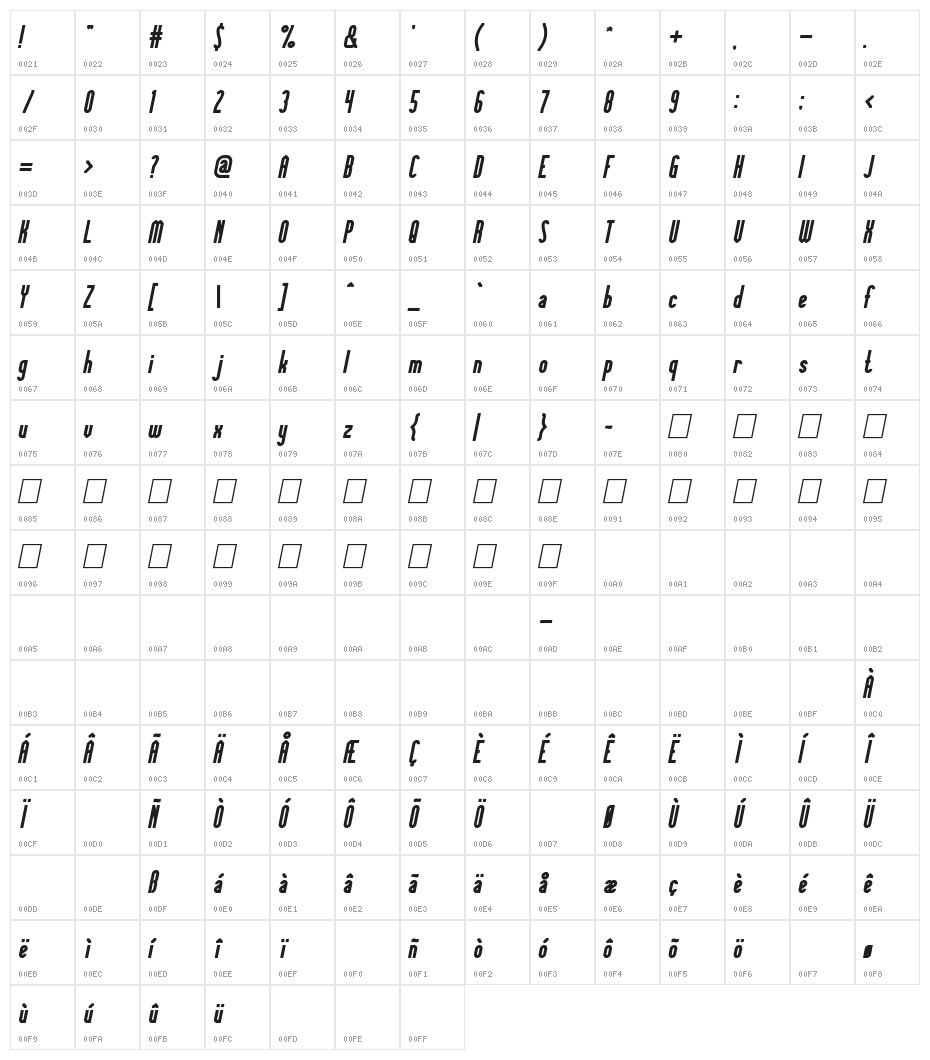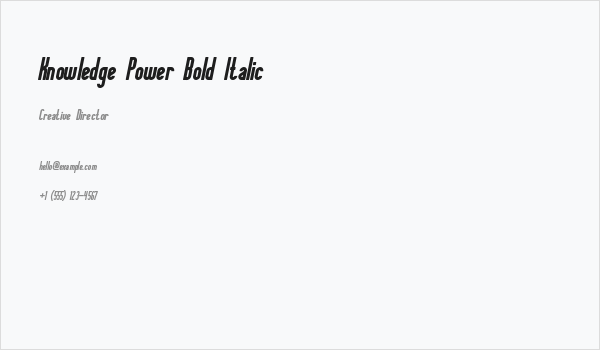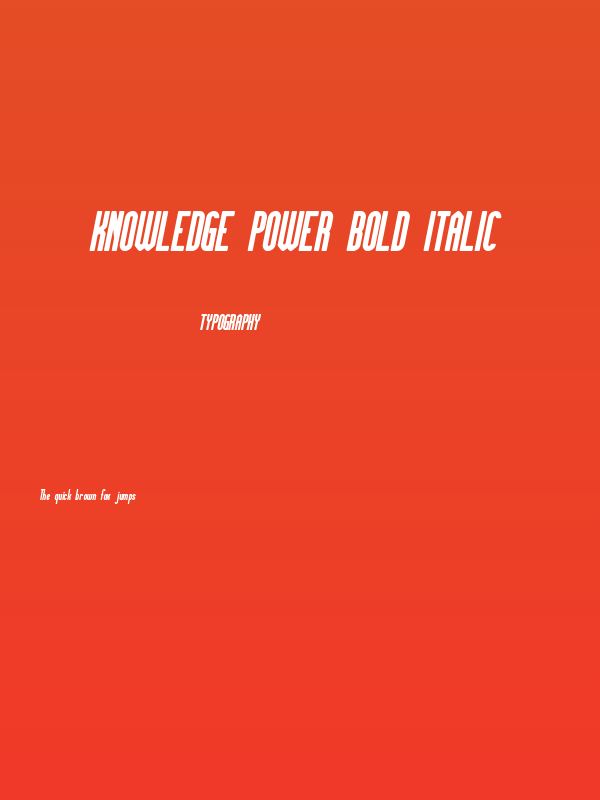
Knowledge Power Bold Italic Font
Knowledge Power Bold Italic Description
This font features a bold and italicized style with a strong, dynamic presence. The characters are elongated and slightly condensed, giving a sleek and modern look. The uppercase letters are particularly striking, with sharp angles and a forward-leaning posture that conveys motion and energy. The lowercase letters maintain the same boldness, ensuring consistency across text. Numbers and special characters follow the same design principles, making them easily readable while maintaining the overall aesthetic. The font's design is ideal for making a statement, with its high contrast and distinctive style.